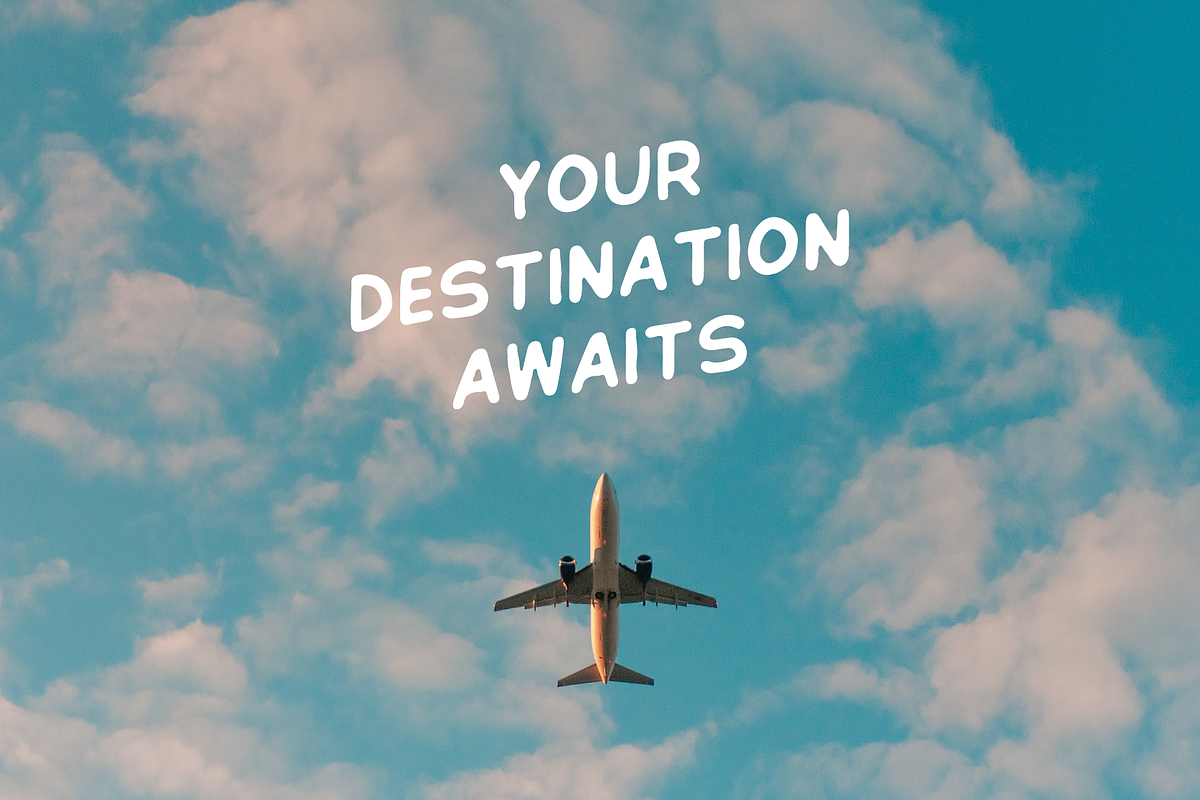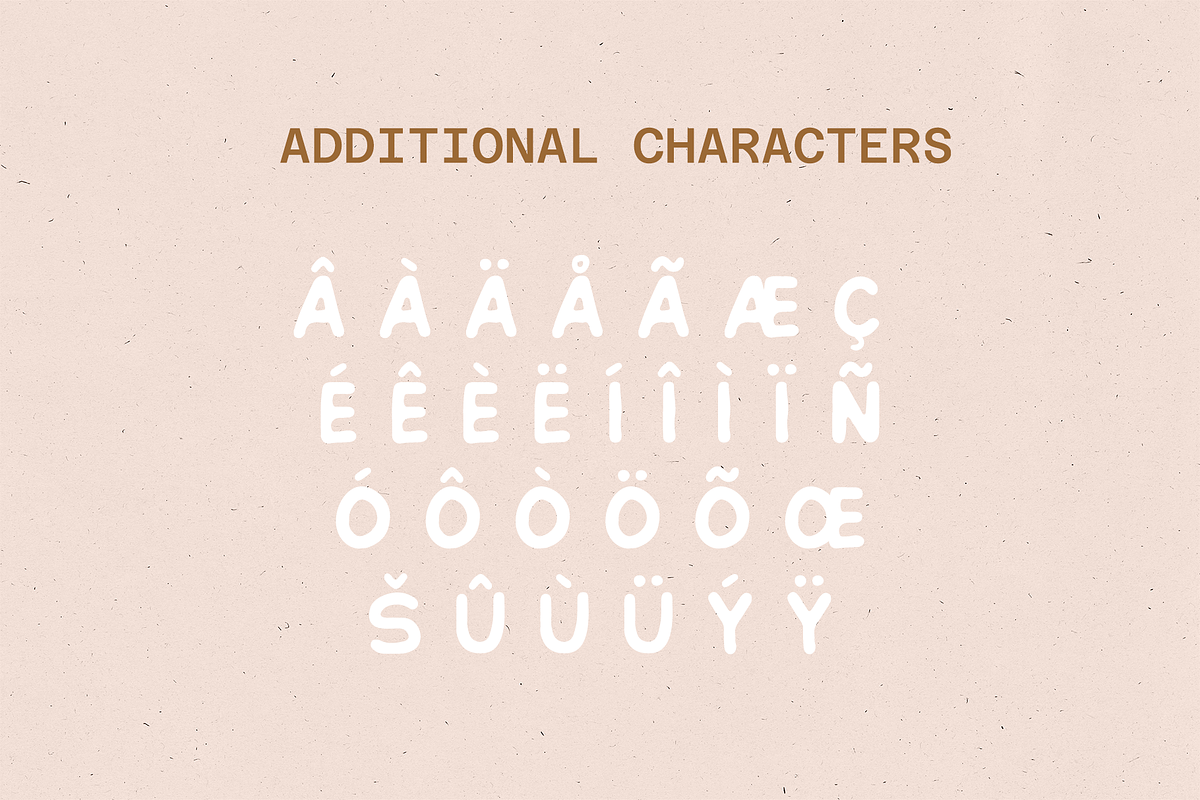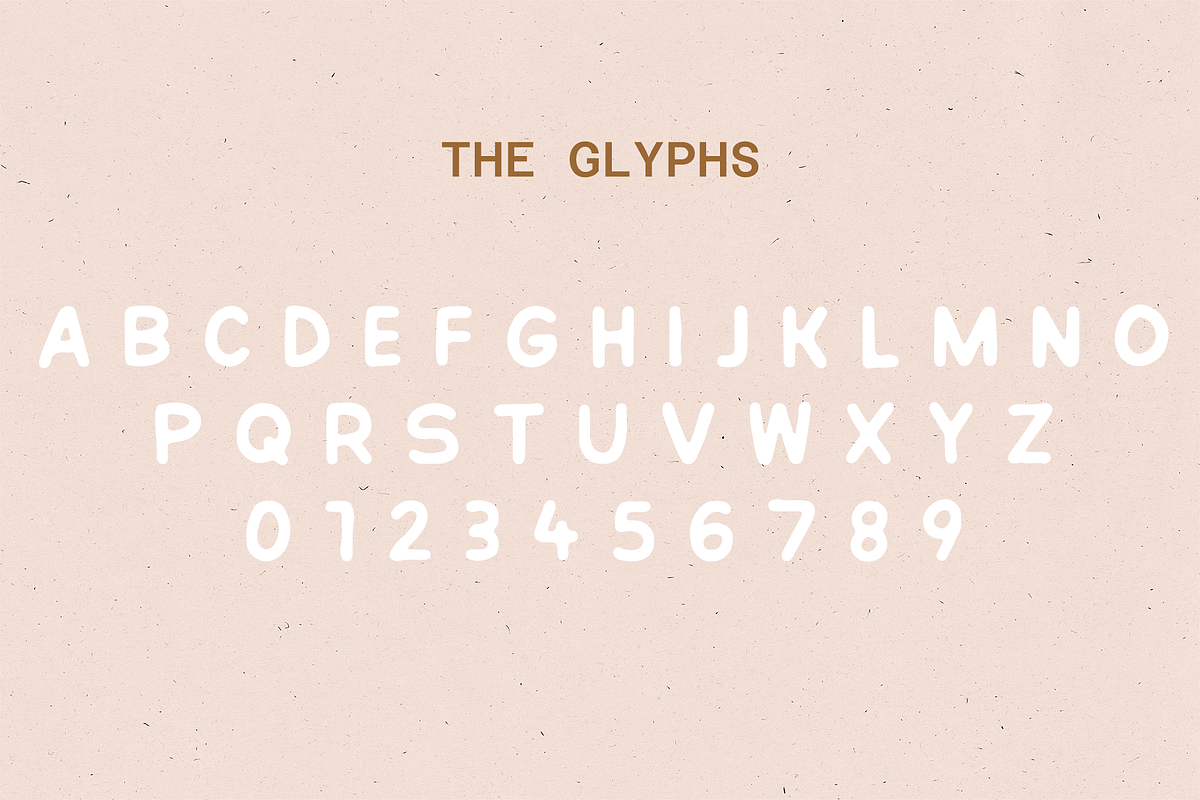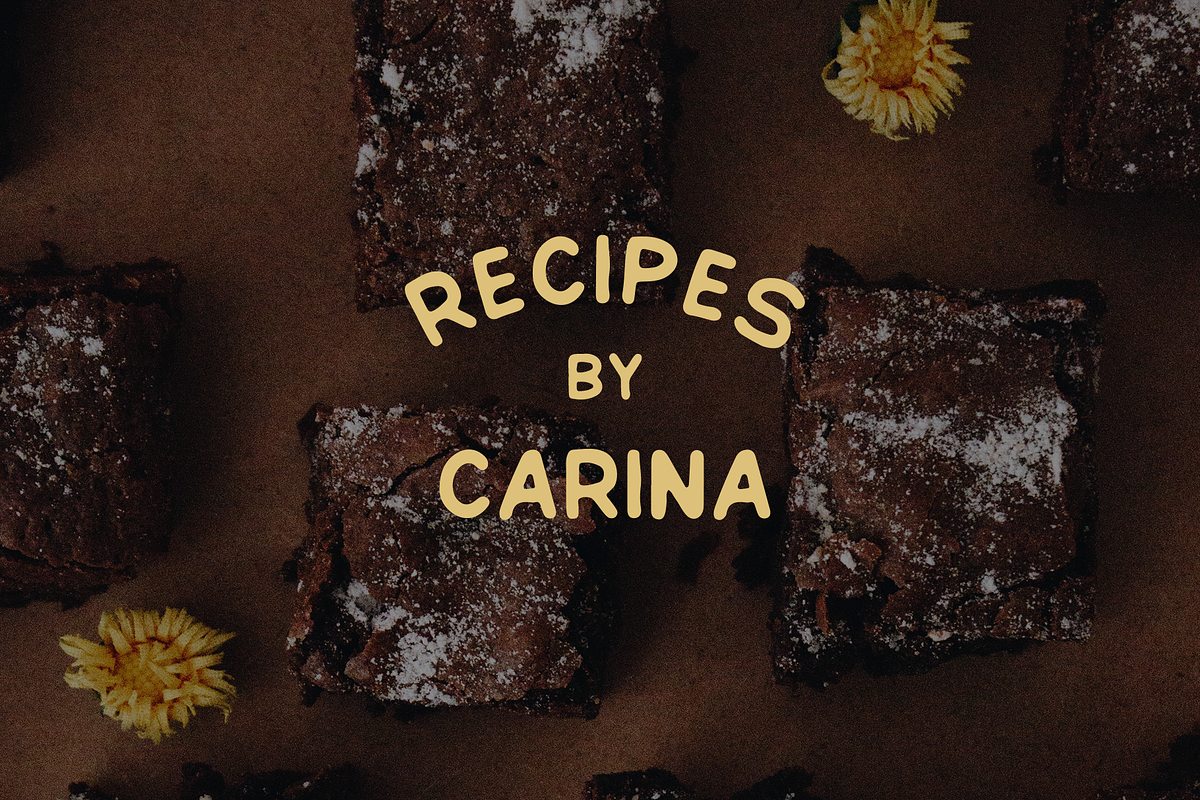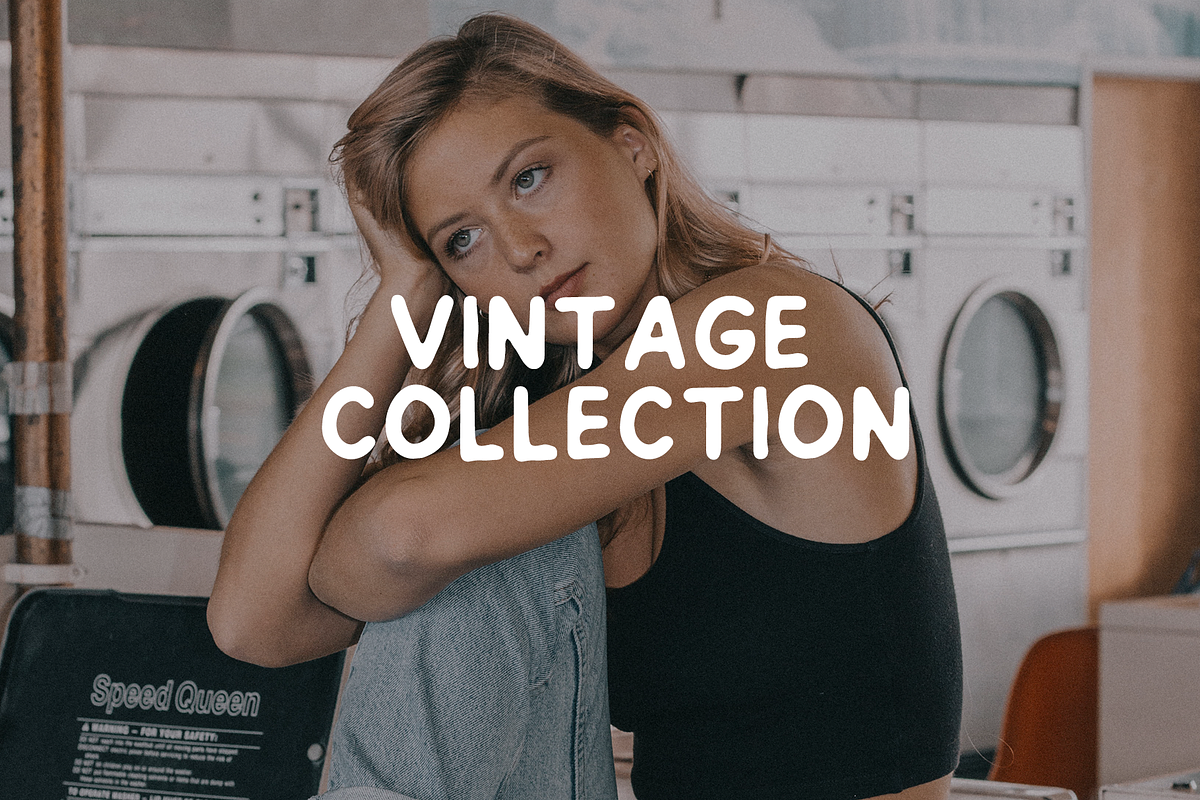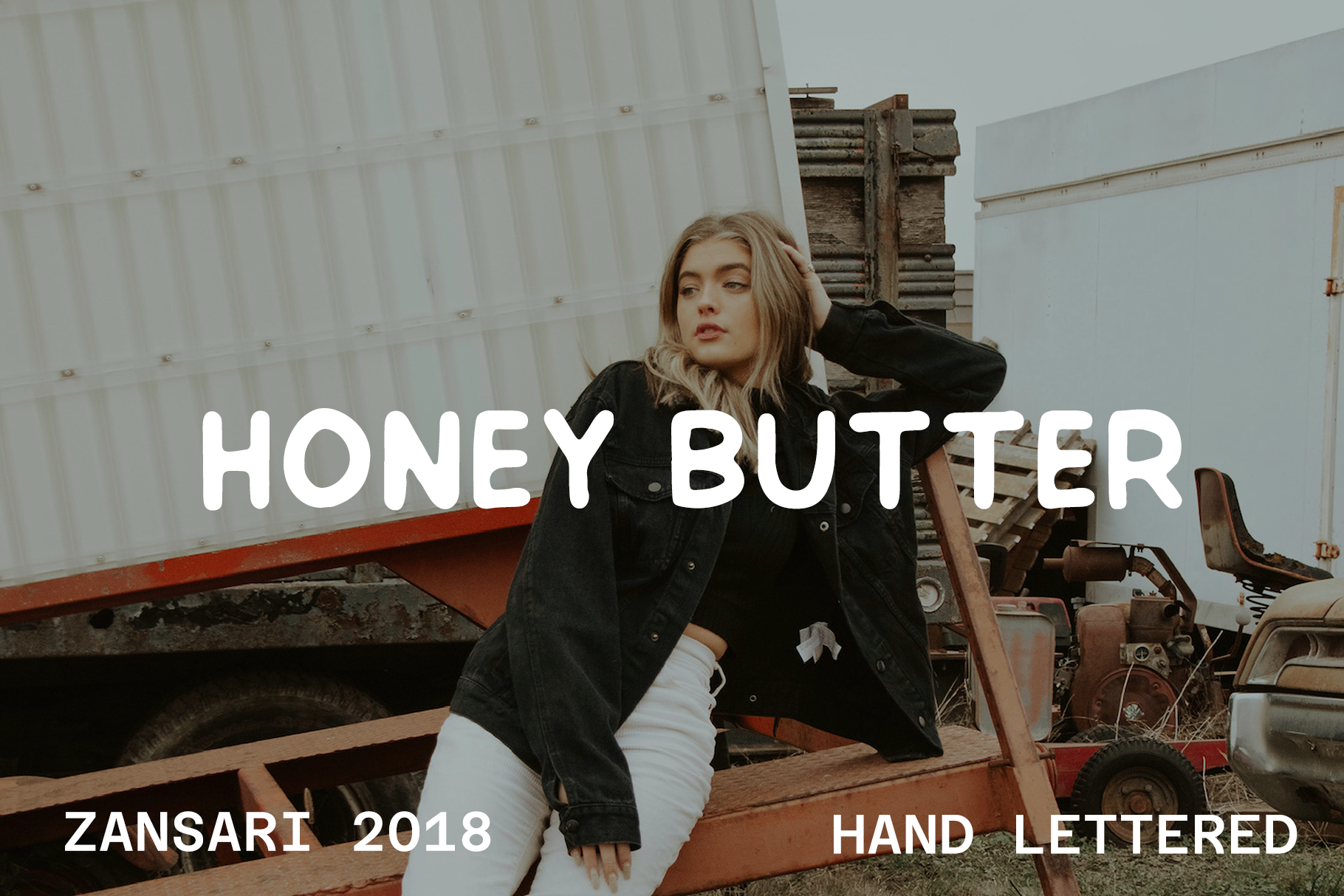
Honey Butter hand drawn font
Honey Butter hand drawn font is an authentic and carefully drawn modern sans styled font. The characters were hand sketched, then scanned and vectorised into a digital font file. Surfer Bay brush font was designed by Zansari font foundry in Auckland, New Zealand
This font would be perfect for advertisements, logos and crafts like quote posters. This has also been quite a popular blog font